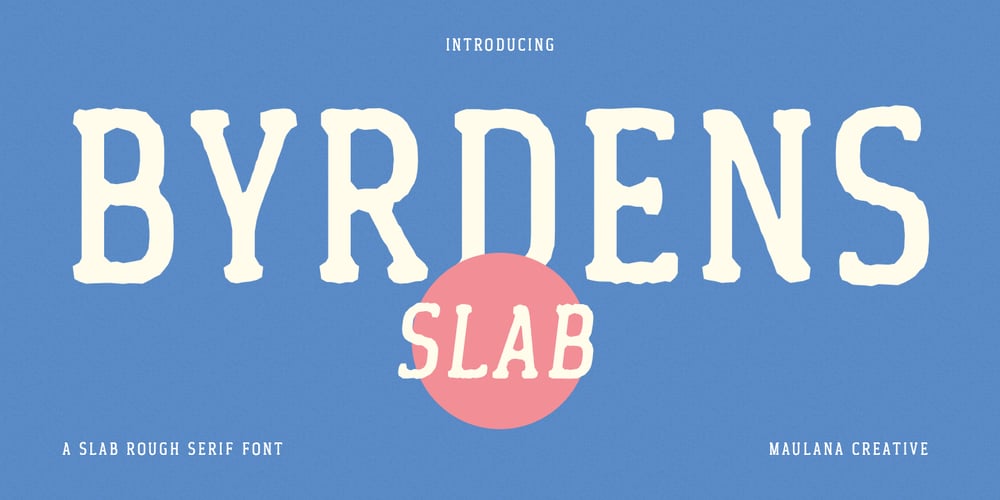
MC Byrdens
MC Byrdens font
MC Byrdens Font Family was designed by Gilang Maulana and published by Maulana Creative. MC Byrdens contains 2 styles and family package options. Byrdens is a retro slab serif font. With regular rounded stroke, fun character. To give you an extra creative work. Byrdens font support multilingual more than 100+ language. This font is good for logo design, Social media, Movie Titles, Books Titles, a short text even a long text letter and good for your secondary text font with script typeface. Make a stunning work with Byrdens font. Cheers, Maulana Creative